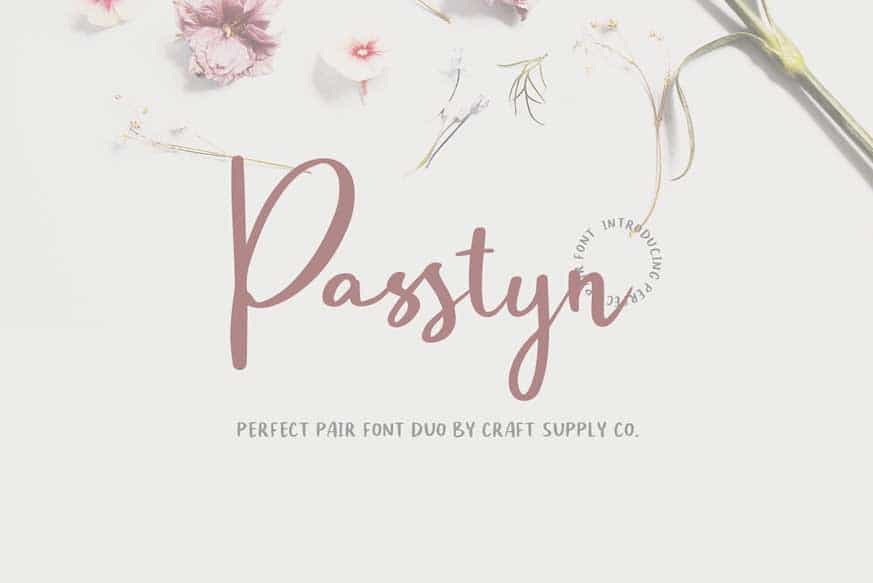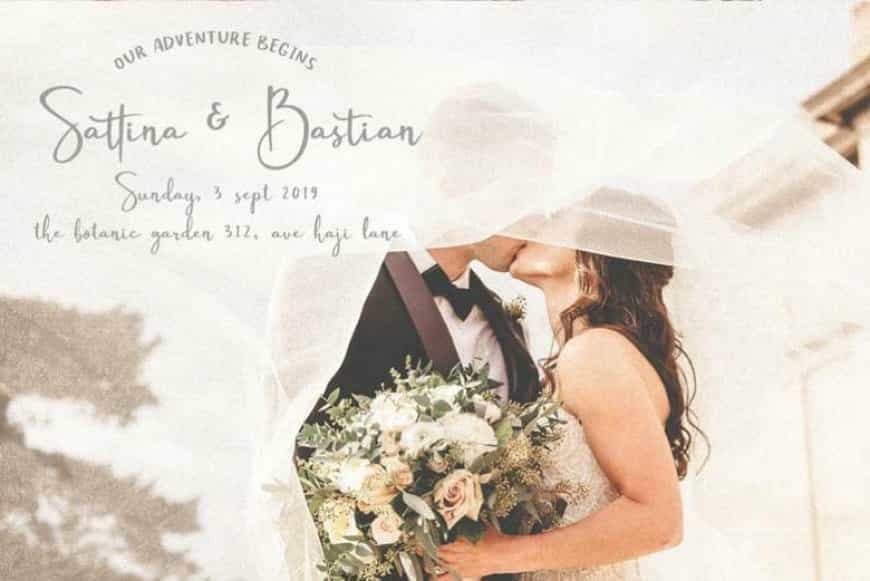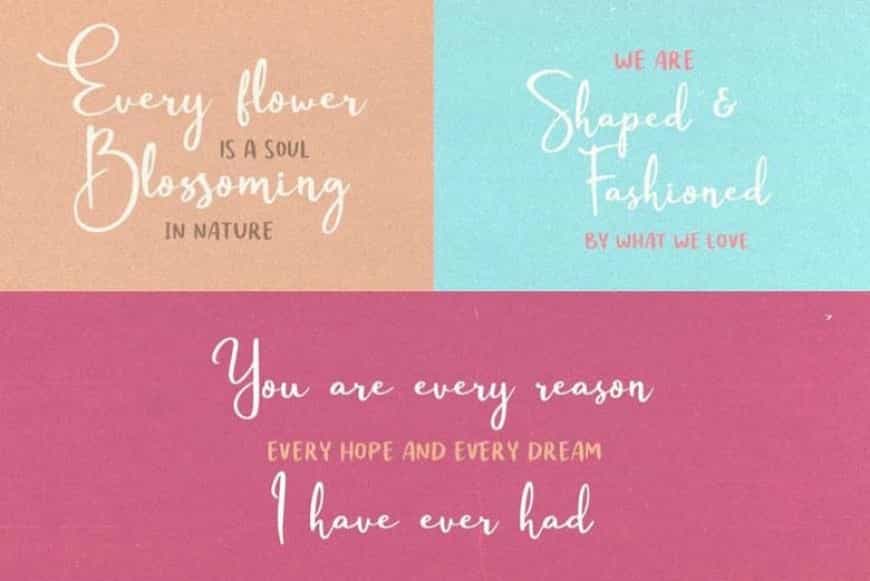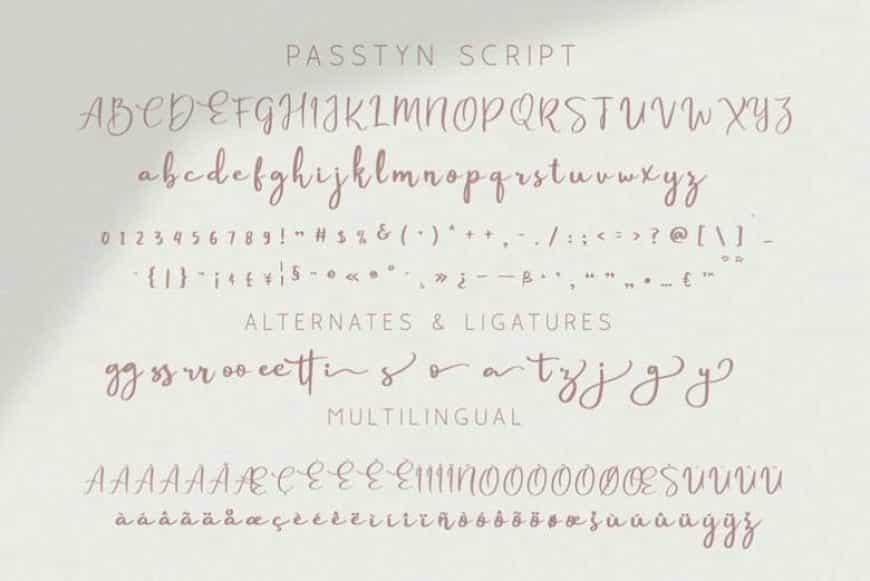
Passtyn Handwritten Font Duo uses natural feeling of handwriting script as the core, making this font popular in stationery design. Larissa A Lovely Script Font will work well in fashion, e-commerce brands, trend blogs and wedding boutiques, as well as any business that needs an upmarket and chic look.